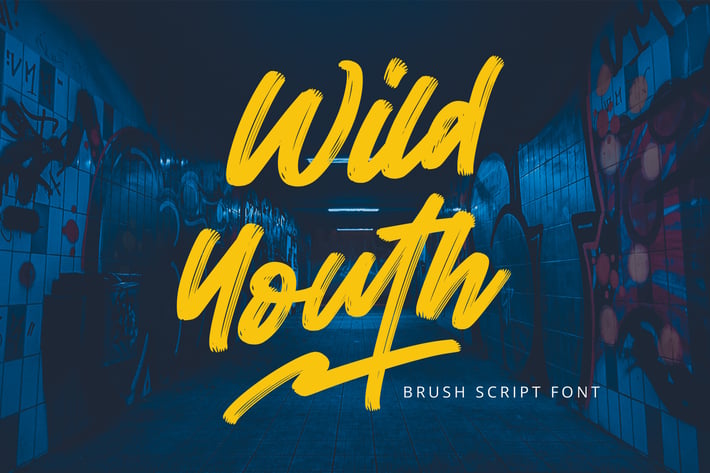
Wild Youth - Brush Font
Wild Youth is a flowing handwritten font, described by an elegant touch, perfect for your favorite projects. Fall in love with its incredibly distinct and timeless style and use it to create spectacular designs!
Ligatures, Swash, Alternates